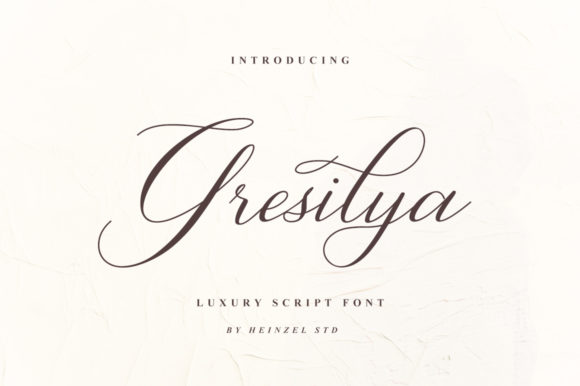
Introducing Gresilya Font, the epitome of sophistication and style! This captivating script font exudes elegance and modernity, empowering you to create unforgettable designs that leave a lasting impression.
With its graceful curves and enchanting ligatures, Gresilya is the perfect choice for crafting stunning logos, branding that commands attention, and invitations that evoke a sense of timeless beauty. Its versatility extends to stationery, wedding designs, and social media posts, adding a touch of refinement to every project you undertake.
Gresilya's PUA encoding grants you effortless access to an array of stunning glyphs, allowing you to unleash your creativity and elevate your designs to new heights. It's the ultimate font for those seeking to make a statement, leaving an imprint of sophistication and charm on every creation.
Indulge in the world of Gresilya Font and witness the transformative power it holds. Embark on a journey of aesthetic delight, where your designs radiate elegance and captivate all who behold them.